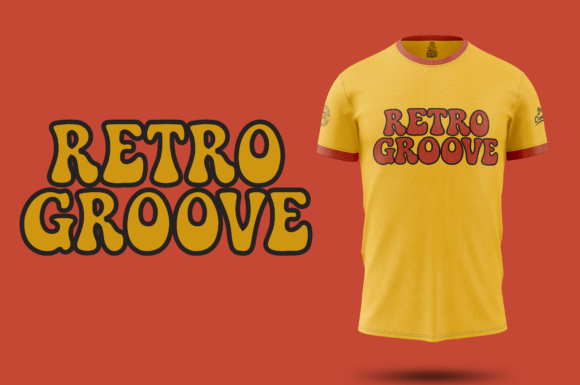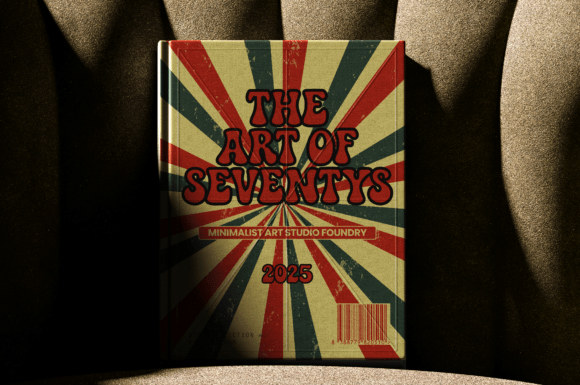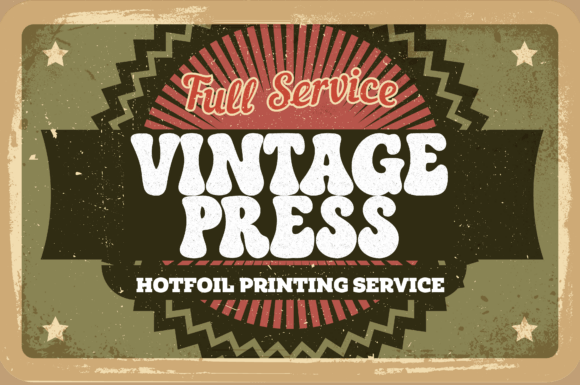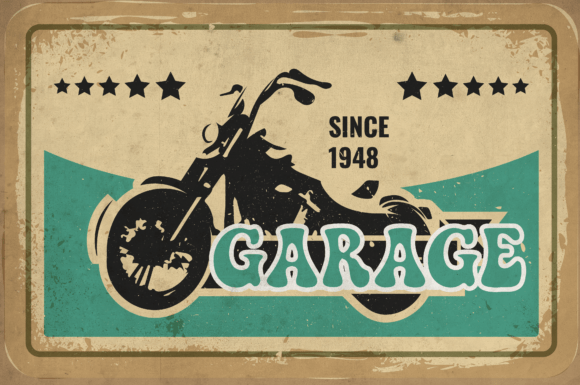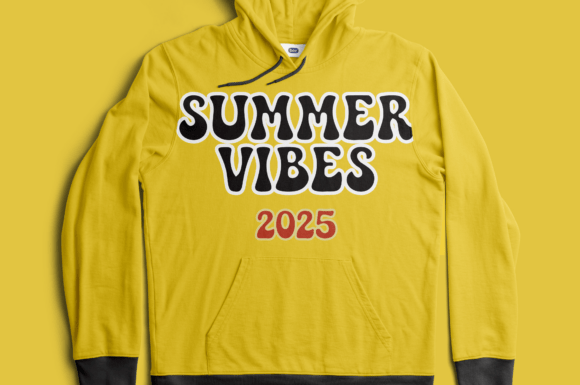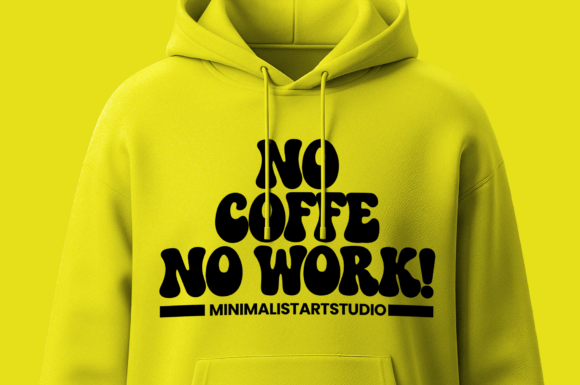
Introduction to Retro Groove Font
Remember the thrill of rummaging through your grandparents’ attic, uncovering old vinyl records, and flipping through yellowed photographs? That’s exactly the feeling you’ll get when you unleash the magic of the Retro Groove Font in your next design project.
This bold and funky display font is a masterful blend of 70s retro aesthetics, psychedelic posters, and groovy lettering. With its chunky curves, bubbly shapes, and vintage vibes, the Retro Groove Font adds a playful, nostalgic feel to any design. Whether you’re creating t-shirt designs, logos, or branding projects, this font brings a blast from the past with a modern twist.
Key Features of Retro Groove Font
- High-quality design resource ideal for creative projects requiring a vintage touch
- Includes a range of characters, including uppercase and lowercase letters, numbers, and punctuation
- Perfect for use in graphic design, digital art, and other creative projects that require a retro aesthetic
Honest Review: Retro Groove Font
I recently stumbled upon the Retro Groove Font, a design resource that caught my attention with its unique aesthetic. As a designer, I appreciate fonts that can add a touch of nostalgia and playfulness to a creative project.
- ✨ High-quality design: The Retro Groove Font boasts a crisp and clear design that’s perfect for a variety of projects.
- ⚠️ Limited character set: The font’s character set is relatively small, which may limit its use in certain projects.
- ⚠️ Not ideal for large text: While the font is great for small to medium-sized text, it may not be the best choice for large blocks of text.
Overall, I’m impressed with the Retro Groove Font’s design and versatility. While it may have some limitations, it’s a great addition to any designer’s toolkit. I’d recommend it for anyone looking to add a touch of retro flair to their creative project.
Tips for Getting the Most Out of Retro Groove Font
To get the most out of the Retro Groove Font, use it on a transparent background to create a subtle, eye-catching effect. Experiment with different font sizes, colors, and styles to find the perfect combination for your design project.
Common Use Cases for Retro Groove Font
The Retro Groove Font is perfect for a variety of creative projects, including: social media graphics, advertising materials, and editorial content. Its unique, nostalgic design makes it an excellent choice for designers looking to add a touch of vintage flair to their work.